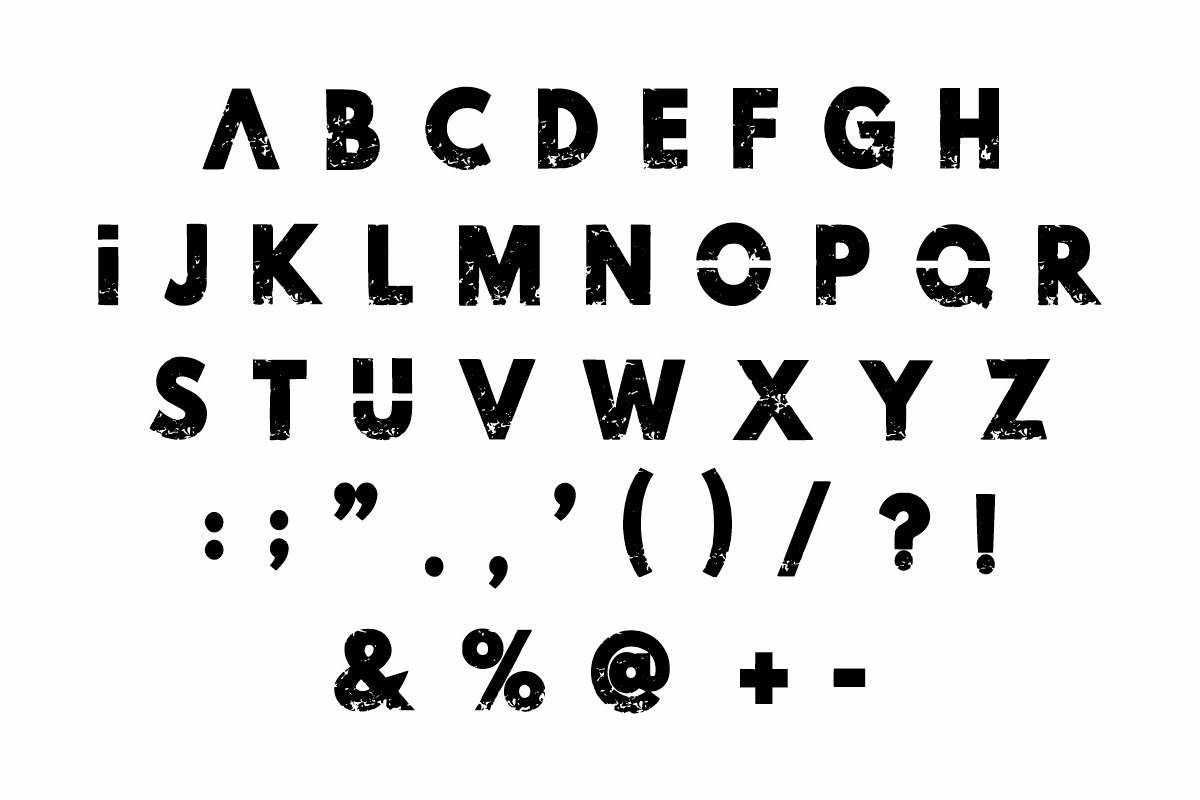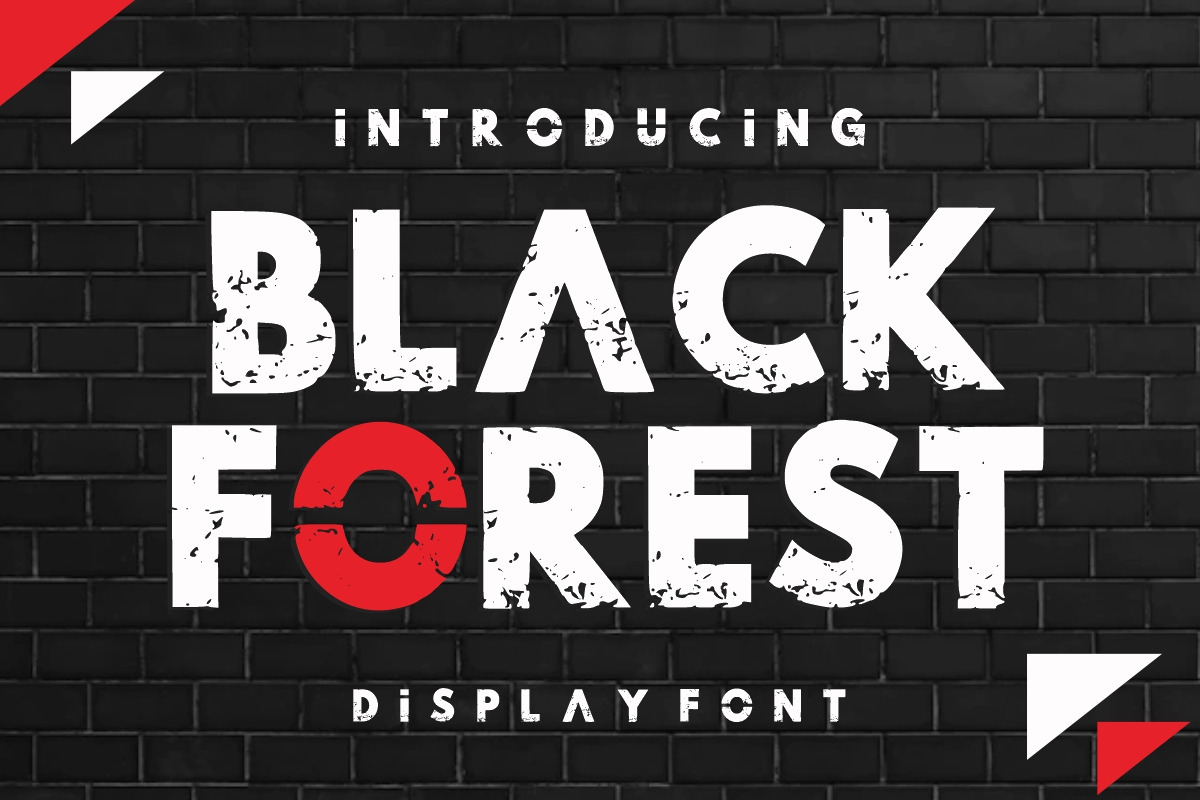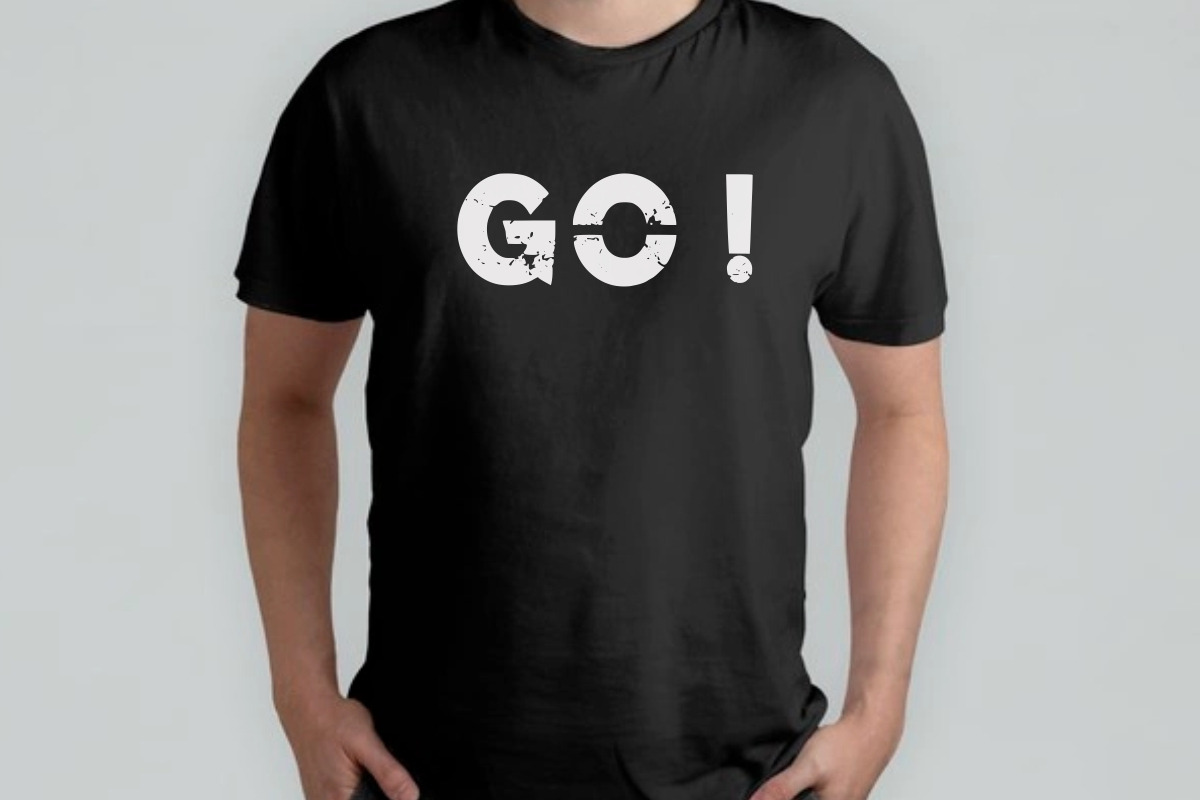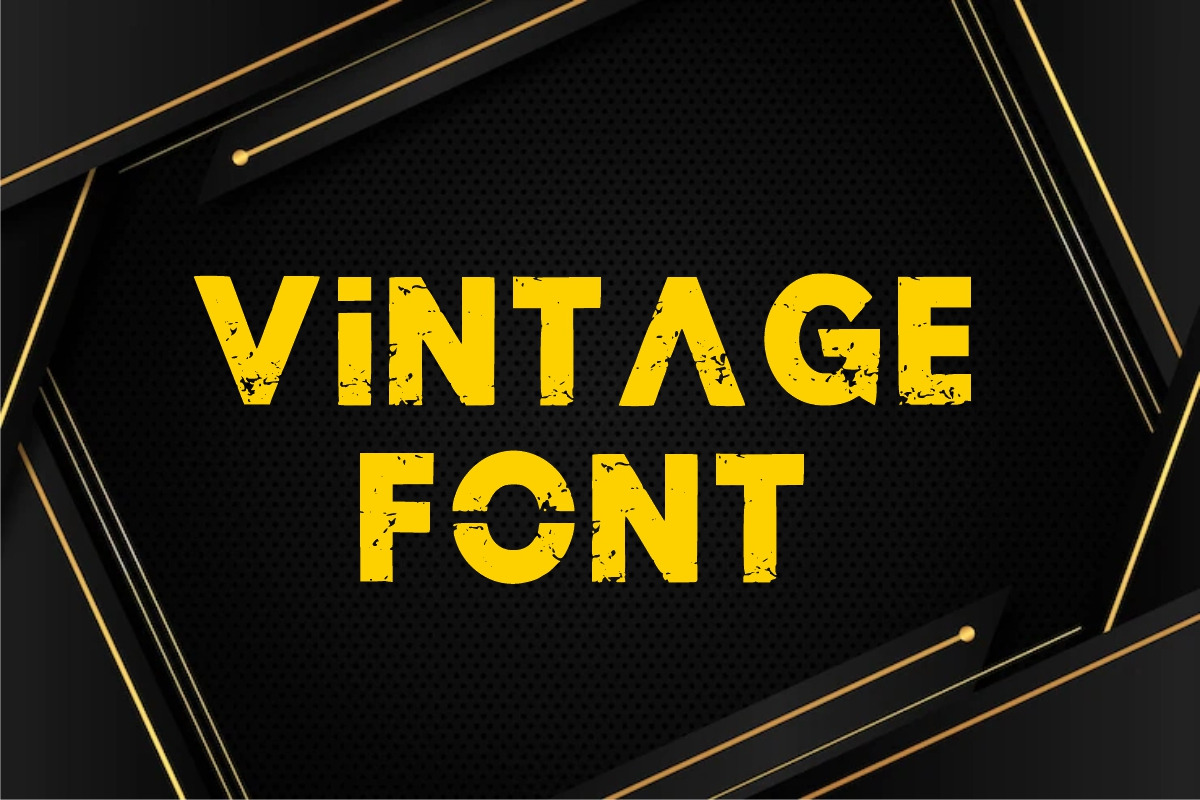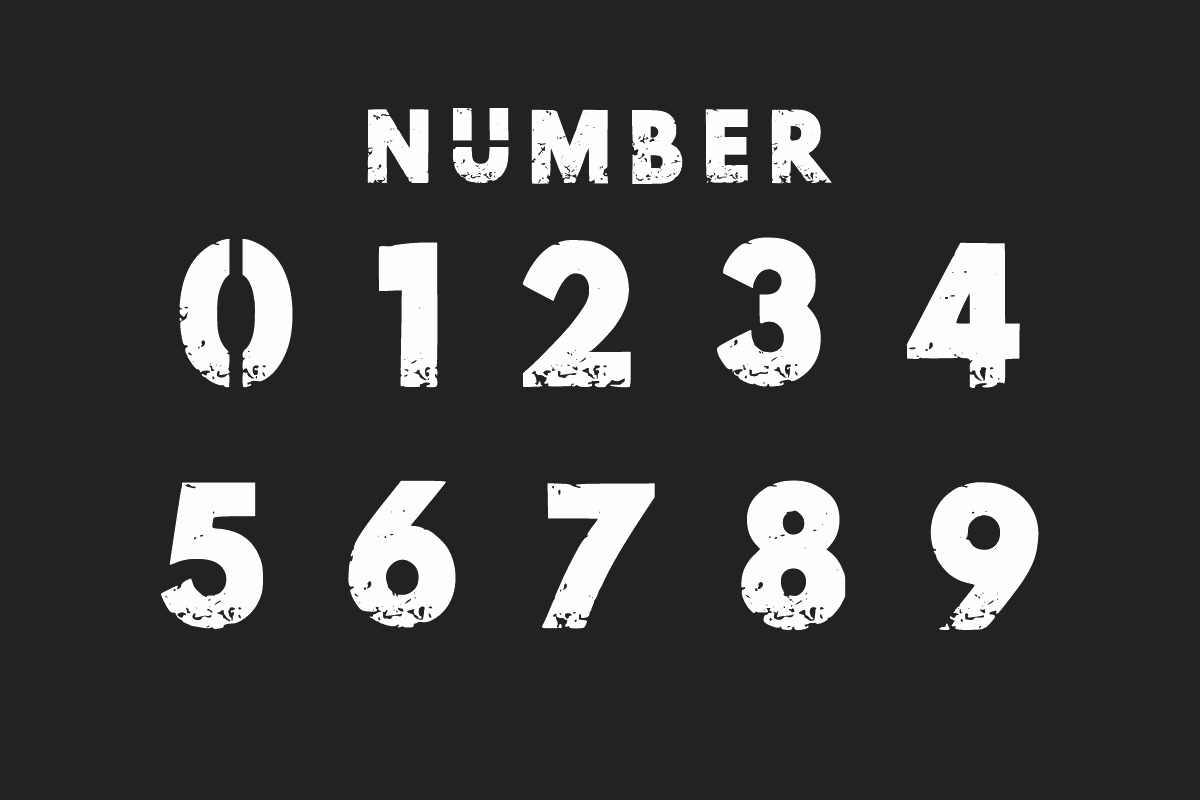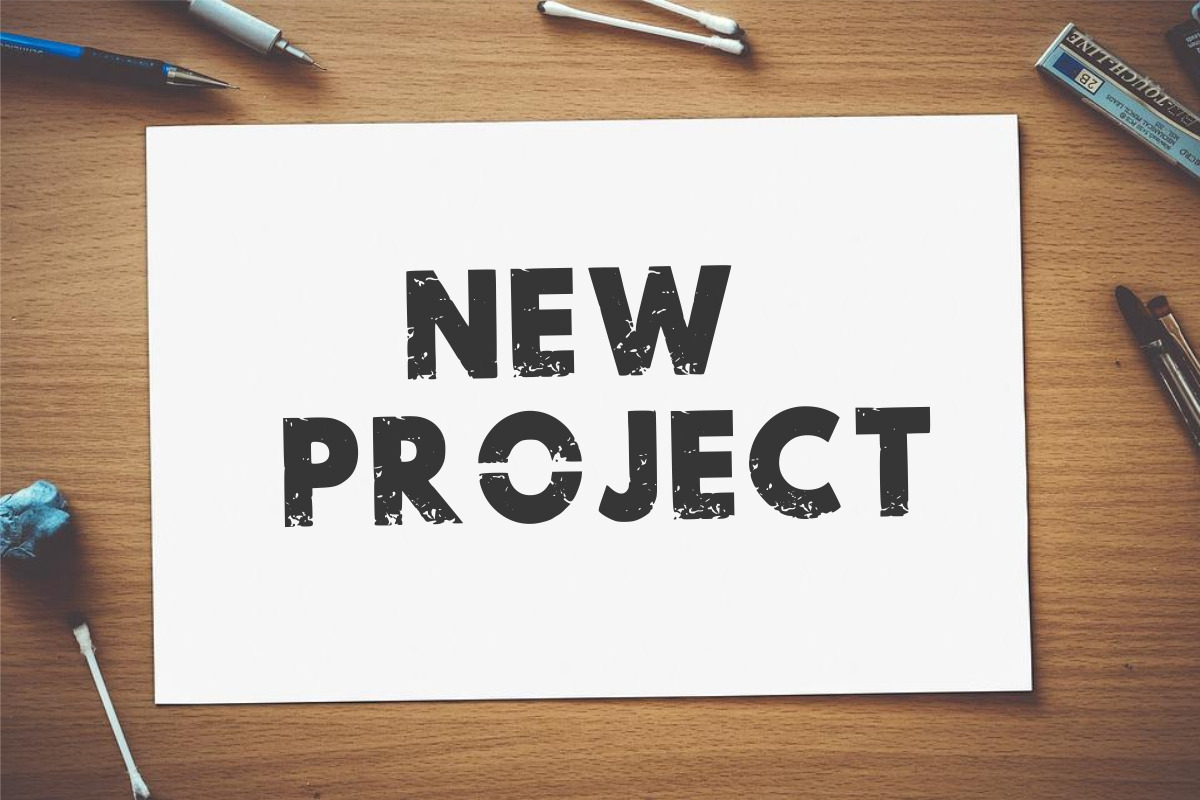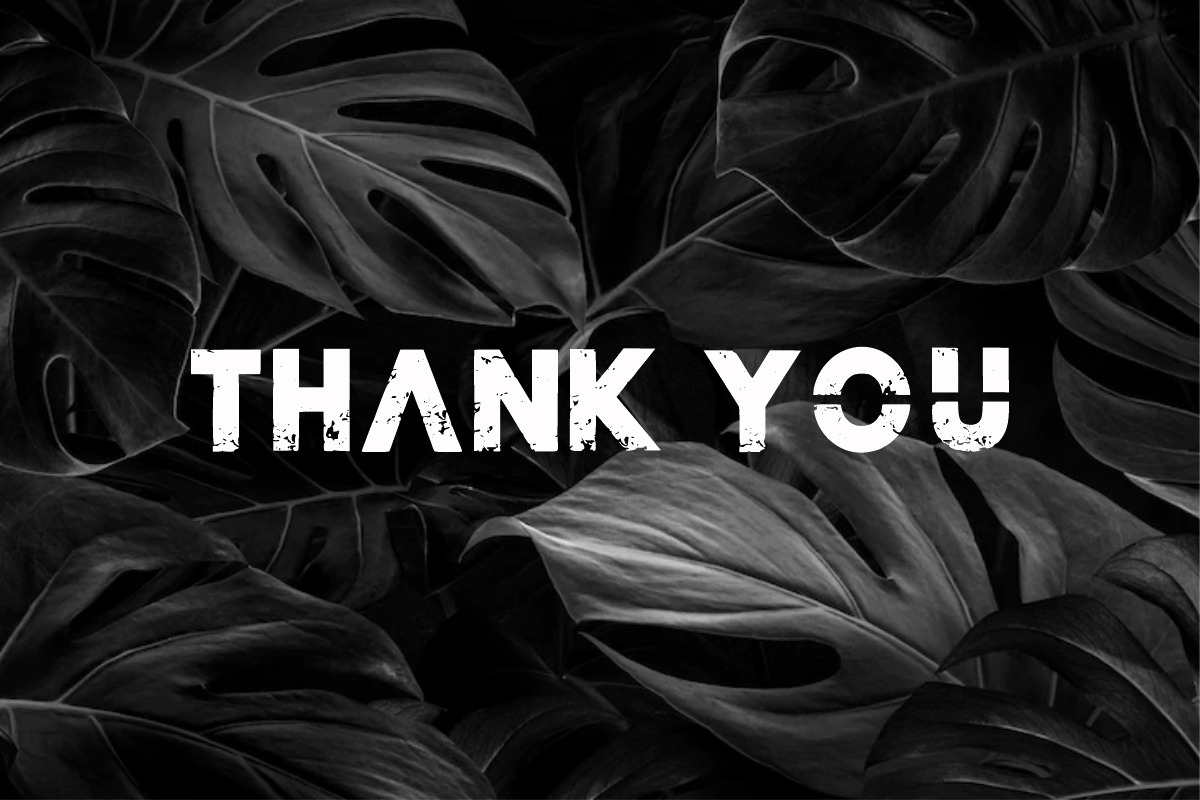
Black Forest - Grunge Font
Black Forest is a vintage, classic, retro, and bold display font. You can use it for various projects such as blog posts, logos, branding, ads, invitations, greeting cards, planners, photo albums, decorations, and much more.